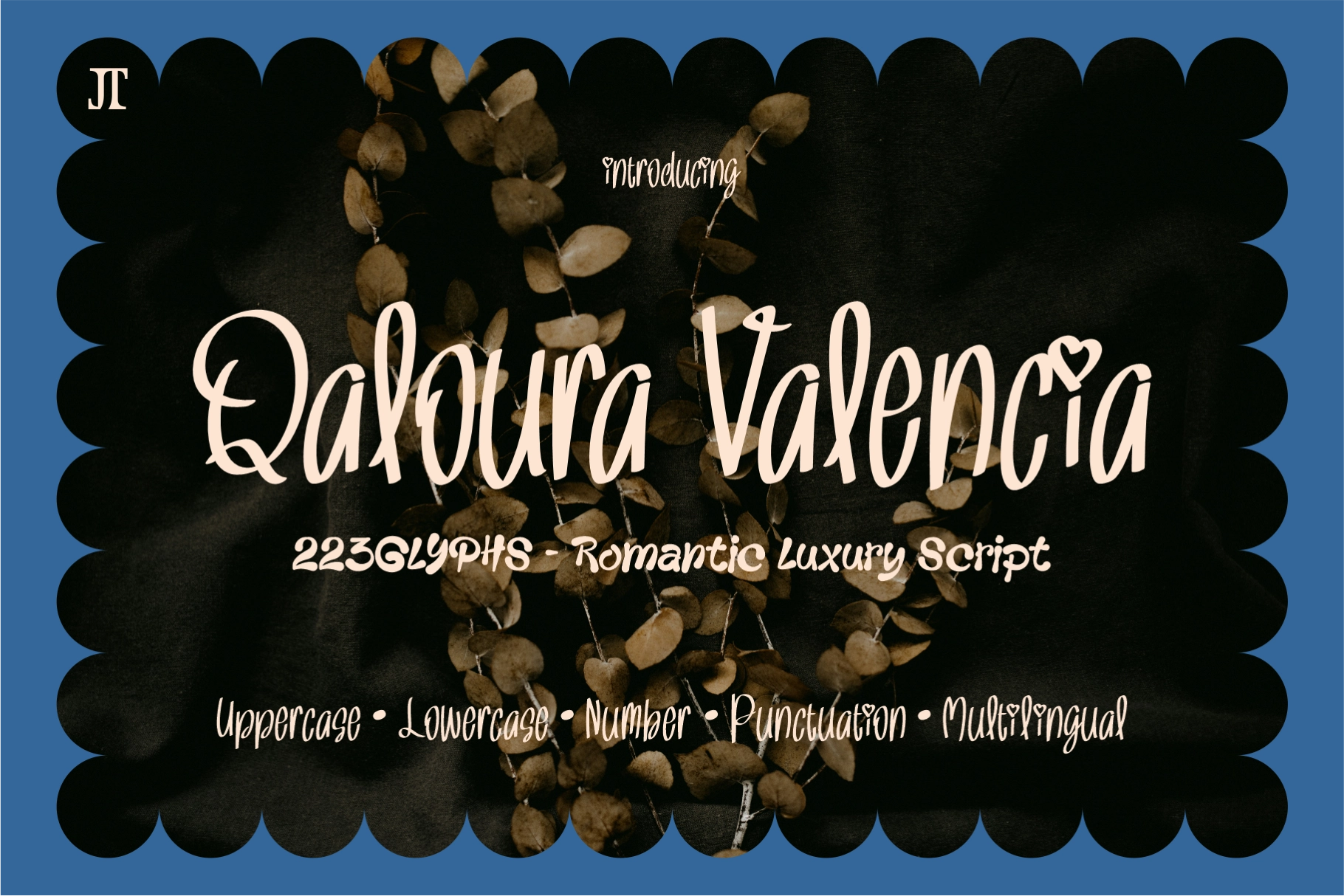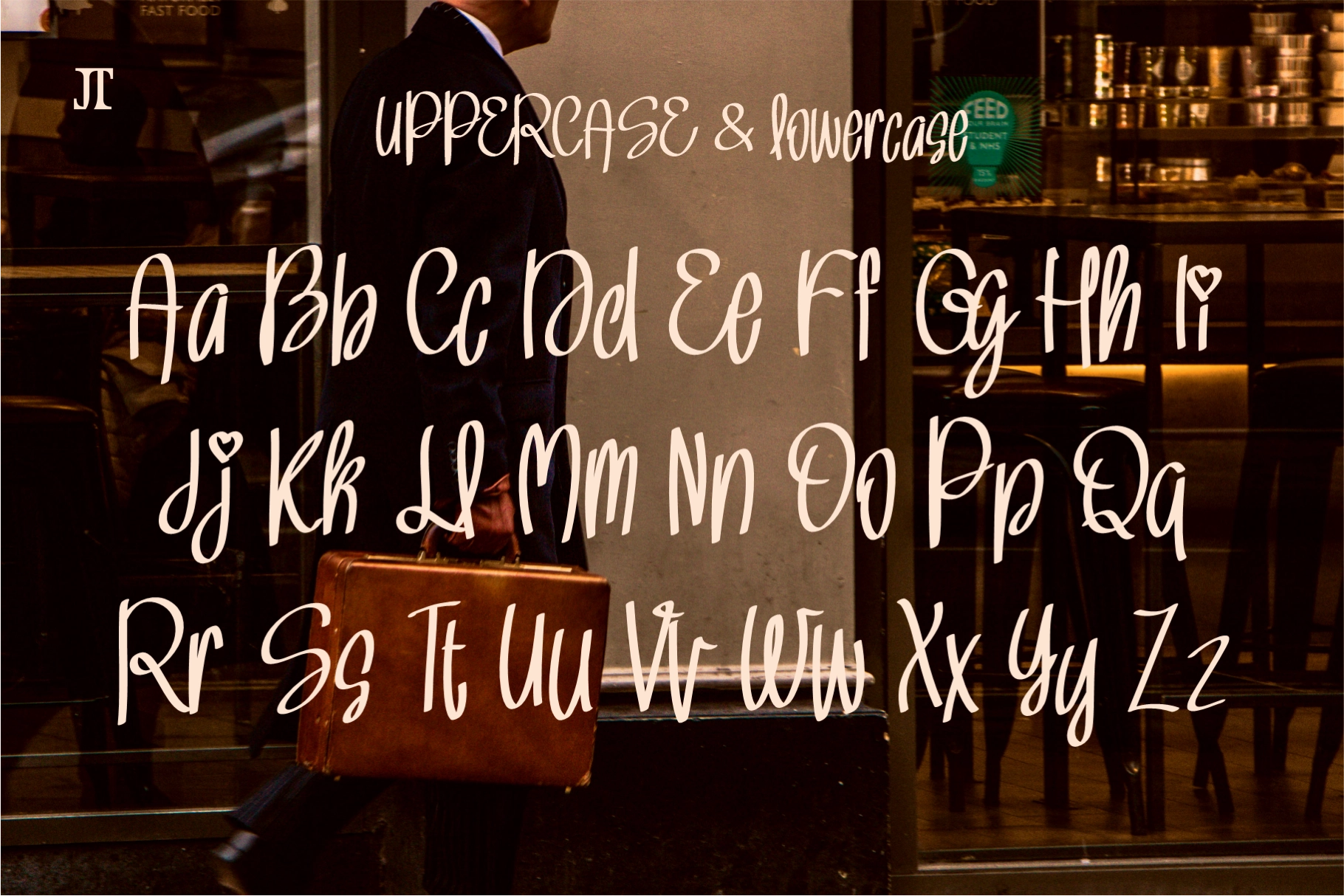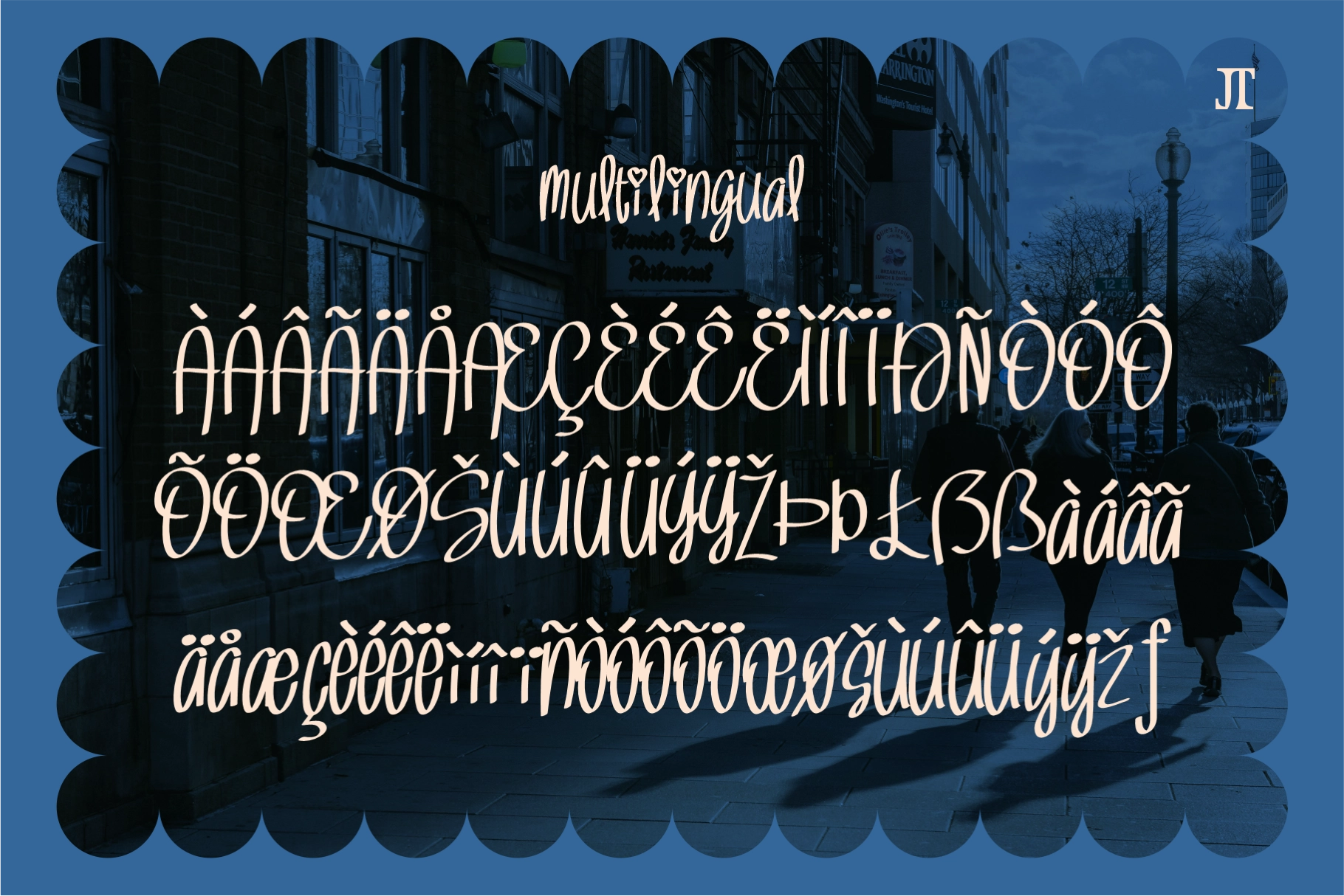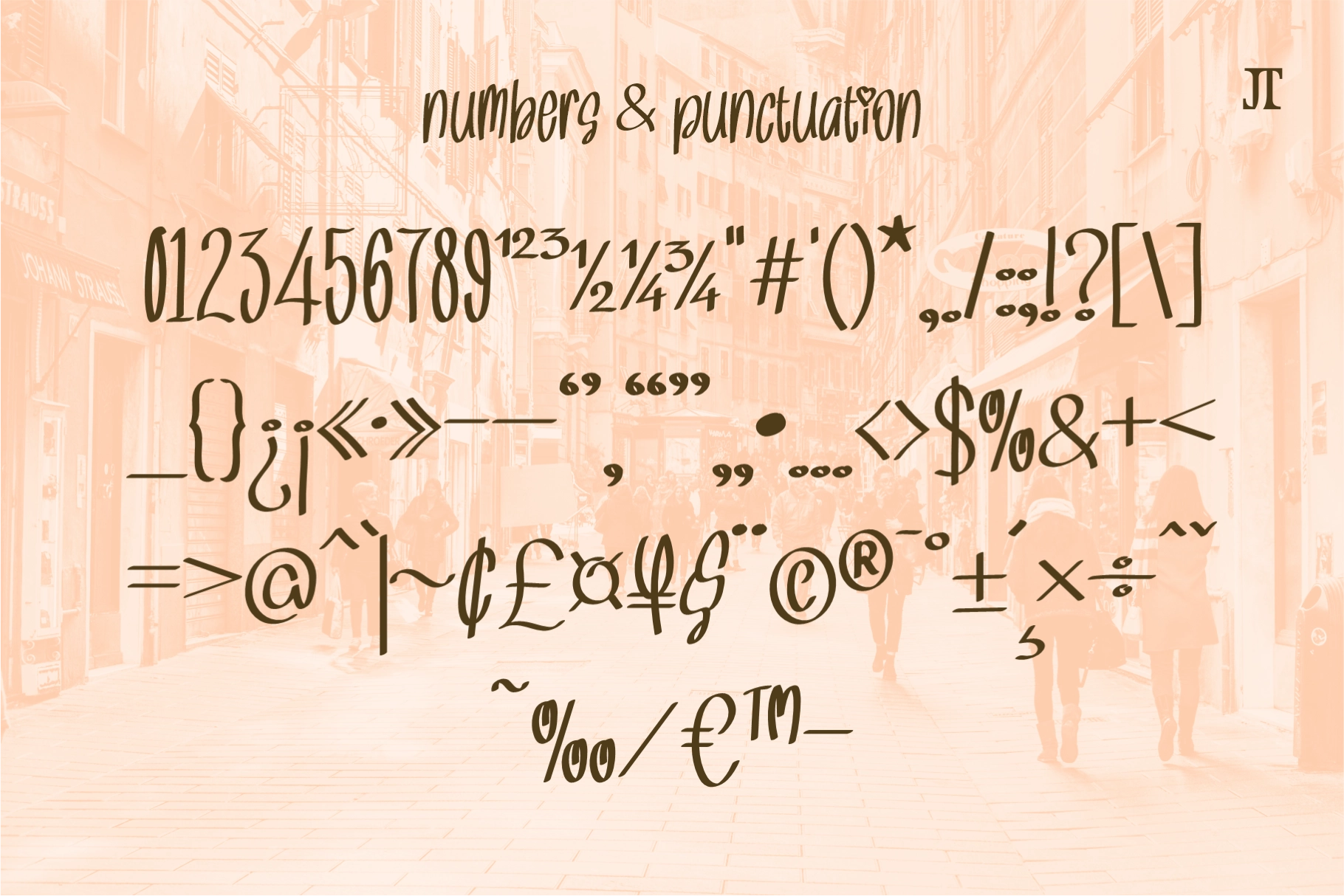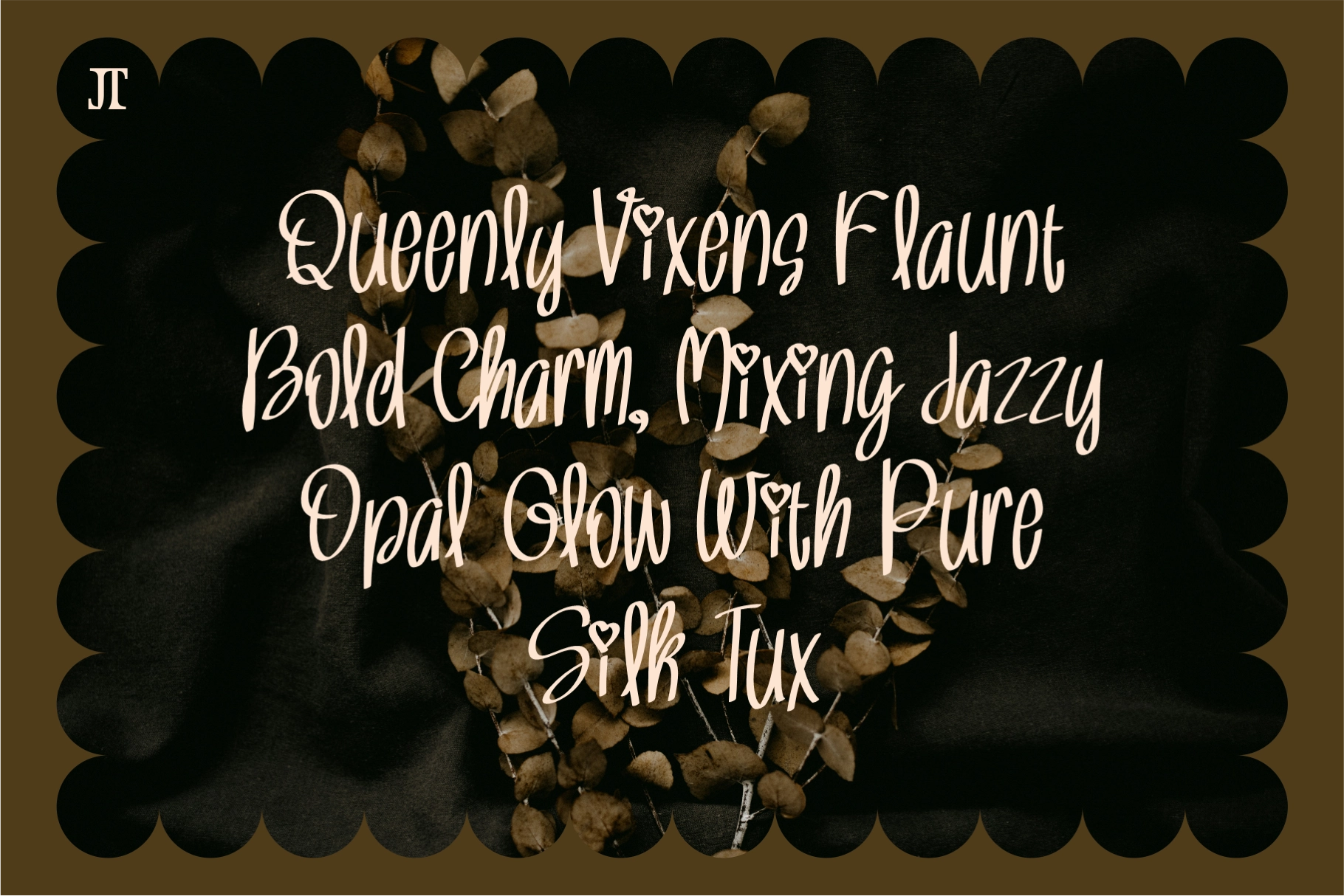
Qaloura Valencia - Romantic Luxury Script Font
Qaloura Valencia is a romantic handwritten script font with rounded, bouncy letterforms, generous x-height, and a signature detail: small heart glyphs replacing the dots on i and j, and appearing as decorative terminals on select capitals. The construction is upright with a natural pen-pressure rhythm — thick strokes on the downstrokes, open loops on the ascenders, and a settled cadence that reads as personal and warm without tipping into formal calligraphy.
It works across romantic, feminine, and celebration-focused design at any scale. Use it for wedding invitations, bridal stationery, beauty brand logotypes, skincare packaging, boutique labels, personal monograms, Valentine's campaign graphics, social media quote cards, candle and fragrance labels, and cake studio branding.
- uppercase & lowercase;
- numerals, punctuation & symbols;
- multilingual support;
- 223 glyphs total.